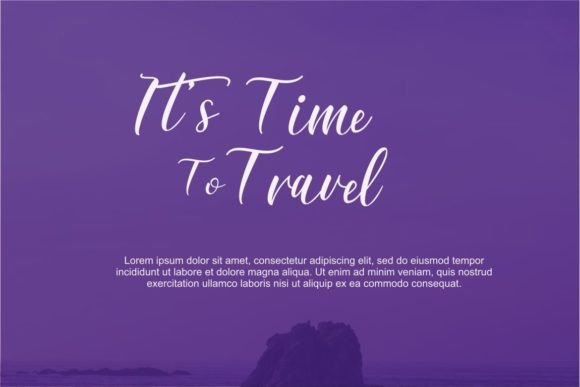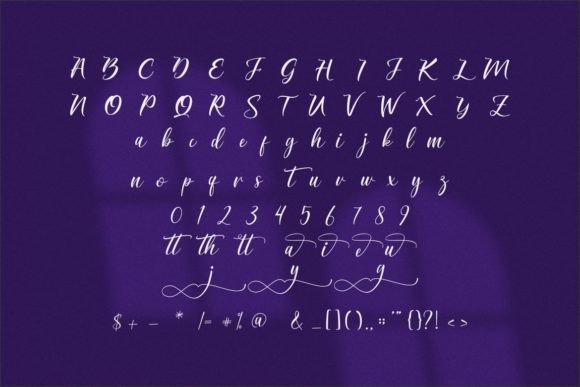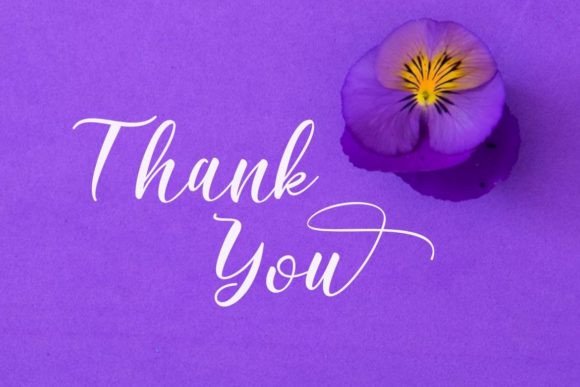
Bittagina Font: Elevate Your Designs with Elegance and Sophistication
In the world of typography, a font can make or break a design. For designers and crafters seeking to add a touch of luxury and refinement to their work, Bittagina Font is an exceptional choice. This beautiful script font boasts a classy, elegant, and modern aesthetic, perfect for a wide range of applications, from logos and branding to invitations, stationery, wedding designs, social media posts, and beyond.
The Beauty of Bittagina Font
Bittagina Font is designed to impress, with its flowing lines and intricate details that exude sophistication and poise. Its refined appearance makes it an ideal choice for designers looking to create high-end visuals that stand out from the crowd. Whether you’re working on a logo, a wedding invitation, or a social media post, Bittagina Font is sure to elevate your design to new heights.
One of the key benefits of Bittagina Font is its incredible versatility. This font can be used for a wide range of projects, including:
• Logos and branding: Create a lasting impression with a custom logo that showcases your brand’s personality and style.
• Invitations and stationery: Add a touch of elegance to your invitations, greeting cards, and stationery.
• Wedding designs: Make your wedding planning process a breeze with beautiful wedding stationery, invitations, and decorations.
• Social media posts: Elevate your social media presence with eye-catching posts and graphics.
Why Choose Bittagina Font?
With so many fonts available, why choose Bittagina Font? Here are just a few reasons why designers and crafters love this font:
• Unique and distinctive look: Bittagina Font stands out from the crowd with its elegant and refined appearance.
• High-quality design: This font is designed with precision and attention to detail, ensuring a professional finish.
• Versatile: Bittagina Font can be used for a wide range of projects, from logos to social media posts.
Get Creative with Bittagina Font
Ready to take your designs to the next level with Bittagina Font? Here are some tips for getting the most out of this amazing font:
• Experiment with different sizes and colors: Find the perfect combination to make your design pop.
• Pair with complementary fonts: Create a stunning contrast by pairing Bittagina Font with a complementary font.
• Play with glyphs and ligatures: Use PUA encoding to access a wide range of glyphs and ligatures, and create unique designs.
Bittagina Font is a beautiful and refined script font that offers a world of creative possibilities. With its elegant and modern look, versatility, and PUA encoding, this font is perfect for designers and crafters seeking to elevate their designs. Whether you’re working on a logo, invitation, or social media post, Bittagina Font is sure to impress. So why wait? Get creative with Bittagina Font today and take your designs to new heights!